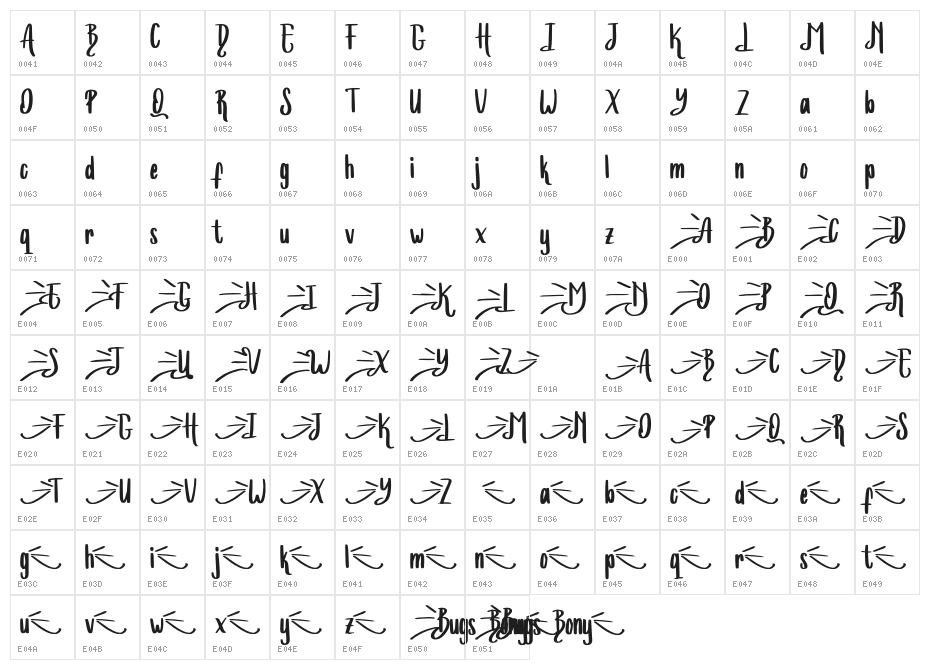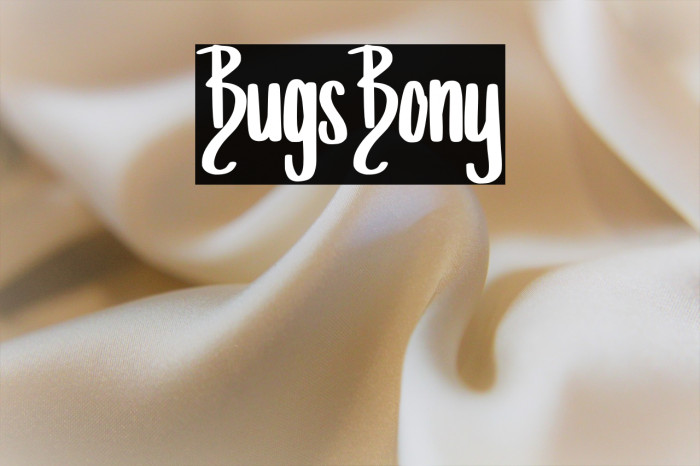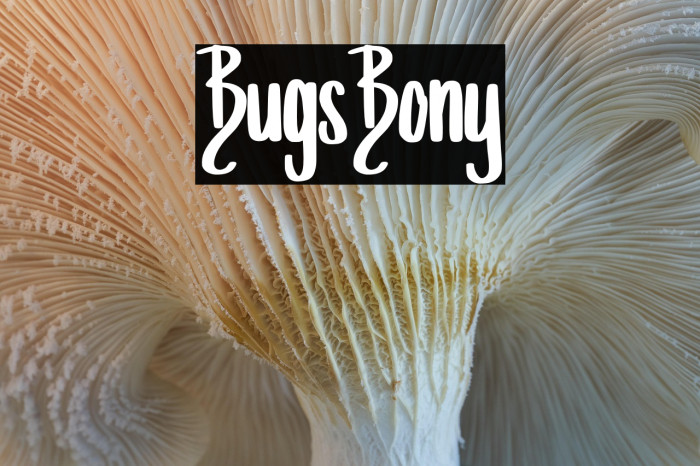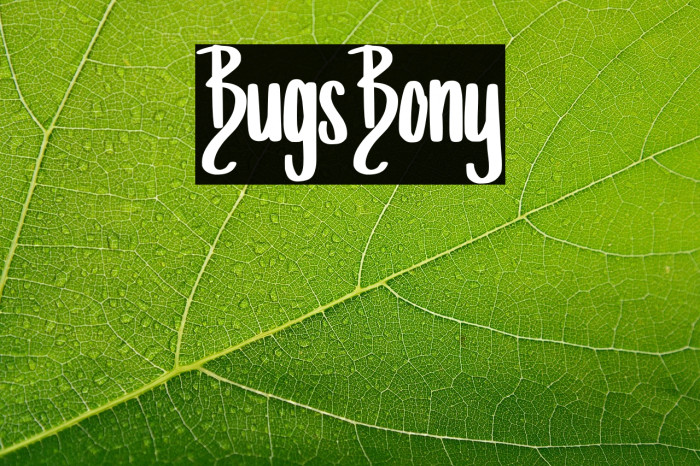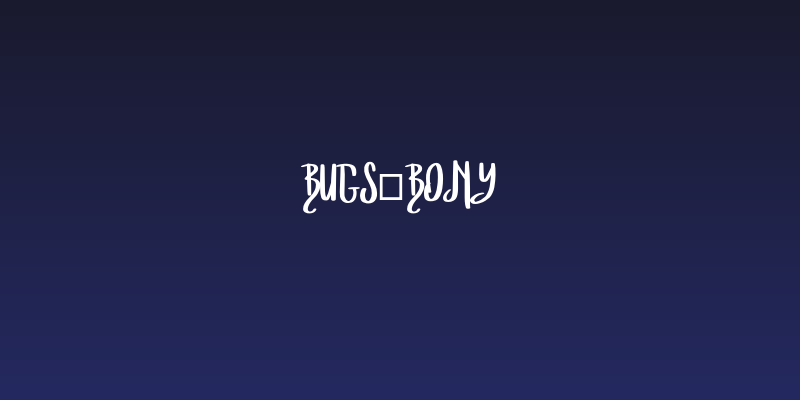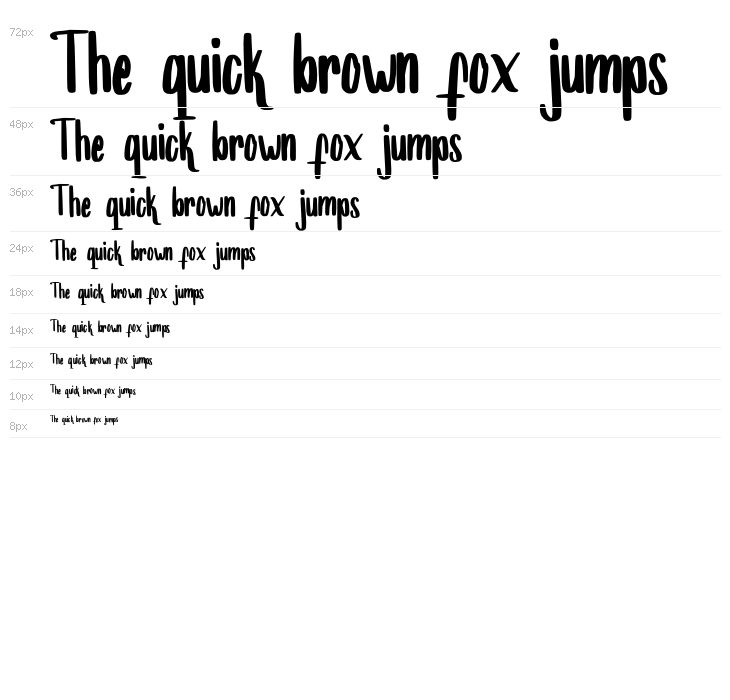
Bugs_Bony Font
Bugs_Bony Description
This font features a playful and whimsical style with a handwritten appearance. The uppercase letters are tall and slightly narrow, with exaggerated curves and loops that give them a lively character. The lowercase letters maintain a consistent flow, complementing the uppercase with their rounded and smooth forms. The overall design is casual yet stylish, making it suitable for creative projects. The font's unique flair is evident in its distinctive letterforms, which add a touch of personality and charm. It is ideal for projects that require a fun and informal look, such as invitations, greeting cards, or playful branding.
Overall StylePlayful
Proposed ProjectsIdeal for invitations, greeting cards, playful branding, and creative projects.